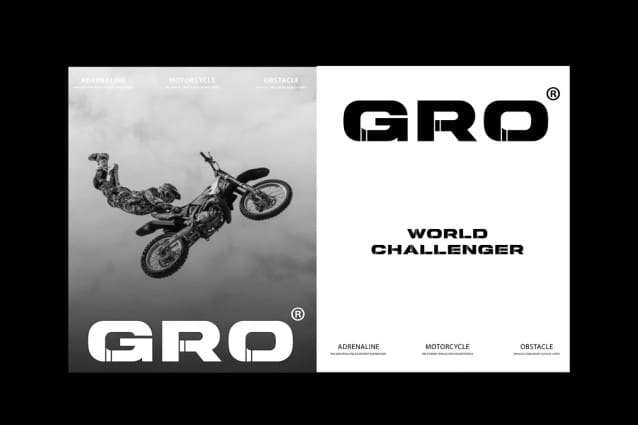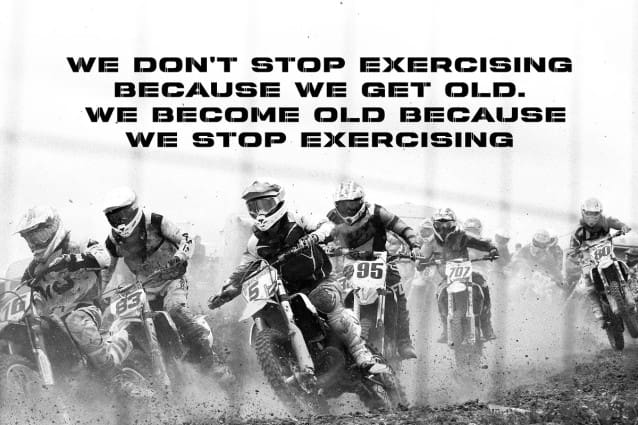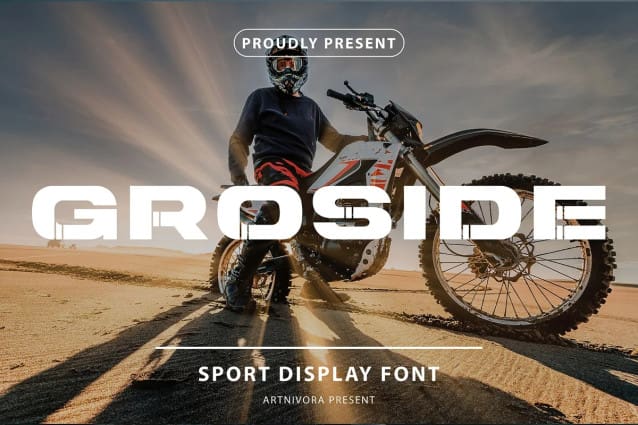
Groside Font
Groside Font, a simple and display font. So perfect for you who needs a typeface for logo designs, magazine, social media, brochure, and many more.